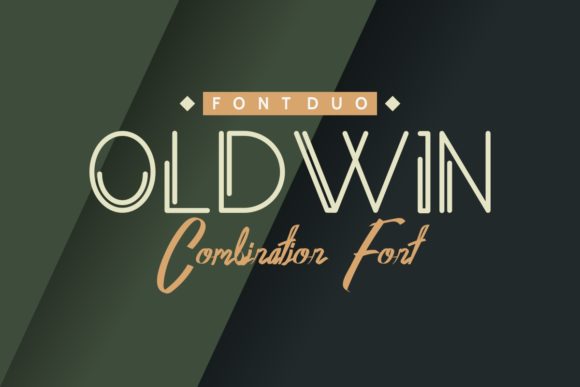
In a realm where words take form, there lies a font that captivates hearts and ignites imaginations - Oldwin. This captivating sans serif font family, crafted with meticulous care by EdricStudio, is an ode to timeless elegance and artistic flair.
Transport yourself to a world where words dance with grace and style. Experience the allure of Oldwin, a font duo that effortlessly blends classic aesthetics with a touch of contemporary charm. With its meticulously crafted glyphs and subtle nuances, Oldwin beckons you to embark on a creative journey like no other.
Dive into a sea of captivating possibilities, where every letter is a brushstroke of art. Oldwin's graceful curves and refined lines lend a touch of sophistication to your designs, effortlessly elevating them to new heights of beauty. Embrace the power of expression as your words come alive, imbued with a sense of timeless elegance and captivating allure.
Indulge in the versatility of Oldwin, a font family that effortlessly adapts to any creative endeavor. Whether you seek to craft logos that leave a lasting impression, design websites that exude professionalism, or create marketing materials that captivate audiences, Oldwin stands as your steadfast companion. Its inherent charm knows no bounds, seamlessly blending into a myriad of design aesthetics, from vintage to modern and everything in between.
Unlock the gateway to a realm where creativity flourishes and imagination reigns supreme. Let Oldwin be your muse, inspiring you to create designs that resonate with your audience, leaving an indelible mark on their hearts and minds. Embrace the magic of Oldwin, and watch as your creative vision takes flight, soaring to new heights of excellence.